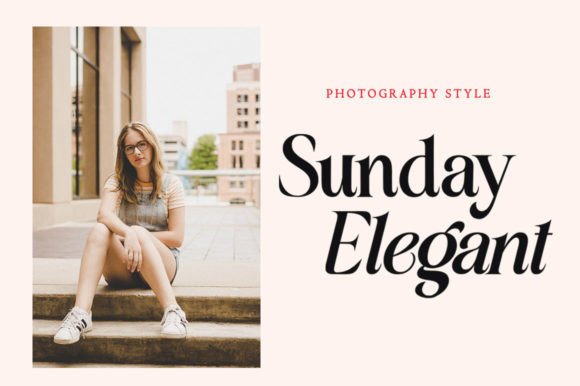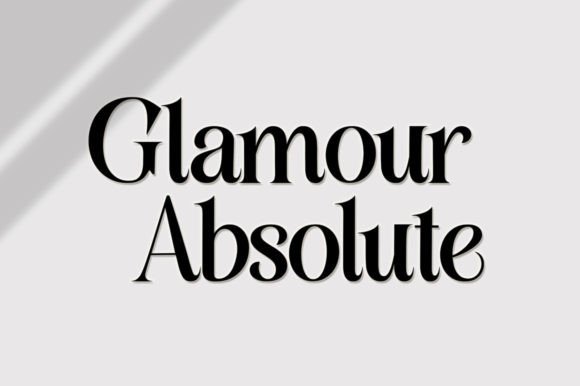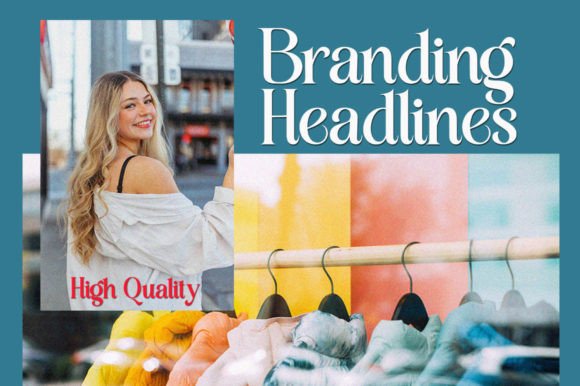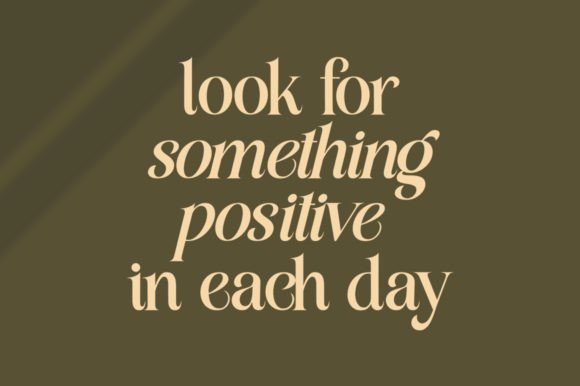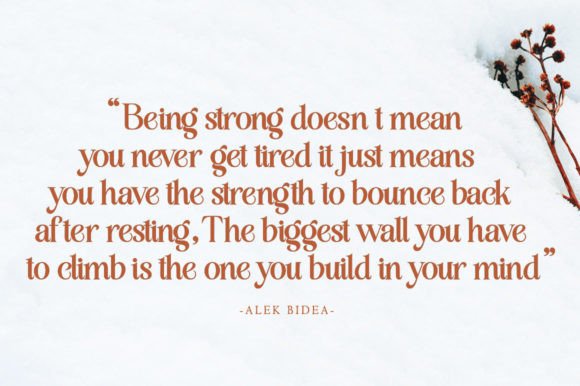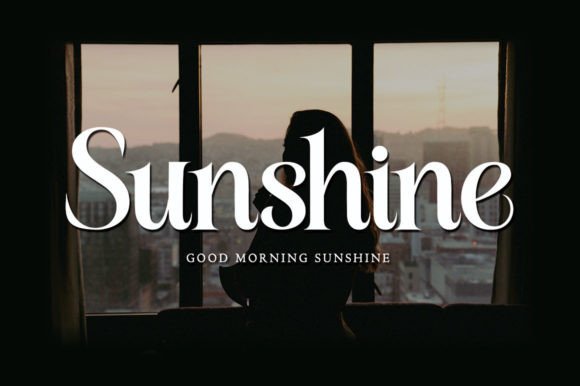
Introduction to Maligea Beautiful Font
Maligea Beautiful is my new elegant serif font that will give your projects a touch of luxury and style.
It’s perfect for logotypes, branding, monograms and wedding invitations, blog headlines, and more Browse through all the previews and get inspired.